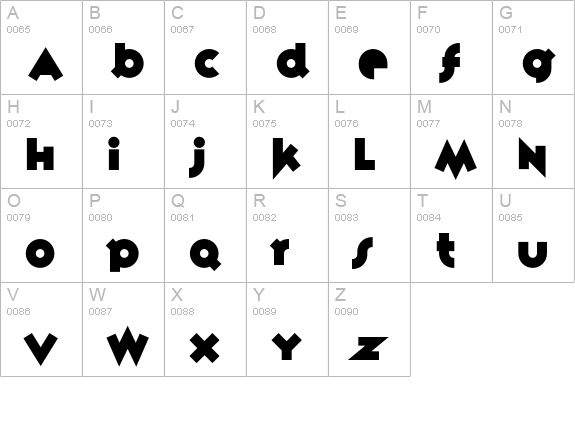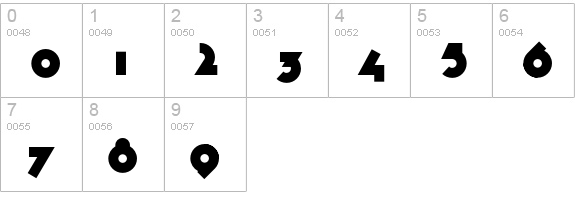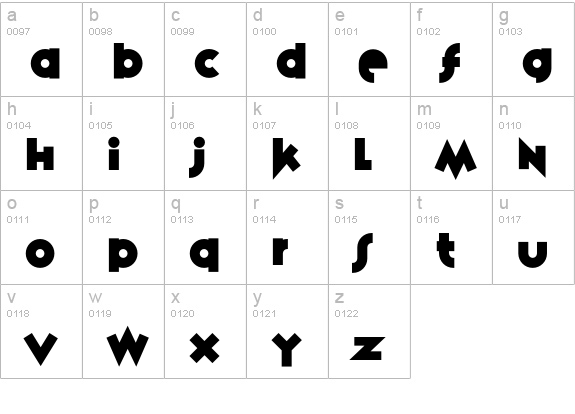
VariexBold is a stunning font that exudes confidence and modernity. With its bold and strong letterforms, this typeface commands attention and makes a powerful statement. Whether used for headlines, logos, or any design project that requires a touch of boldness, VariexBold never fails to deliver. What sets VariexBold apart is not only its striking aesthetics but also its versatility. This font can seamlessly transition from a sleek and professional look to a more playful and creative vibe, making it suitable for a wide range of design styles and purposes. Moreover, VariexBold is not only visually captivating but also user-friendly. Its clear and legible letterforms ensure that your message will be conveyed effortlessly, even from afar. This font is perfect for both print and digital mediums, guaranteeing a consistent and captivating visual experience across different platforms. And the best part? VariexBold is available for free! That's right, you can download this exceptional font at FontsMarket.com without spending a dime. This means that you can enhance your designs, elevate your branding, or simply experiment with a bold new look, all without breaking the bank. So why wait? Unlock the potential of your designs with VariexBold. Download it for free today at FontsMarket.com and take your projects to new heights.